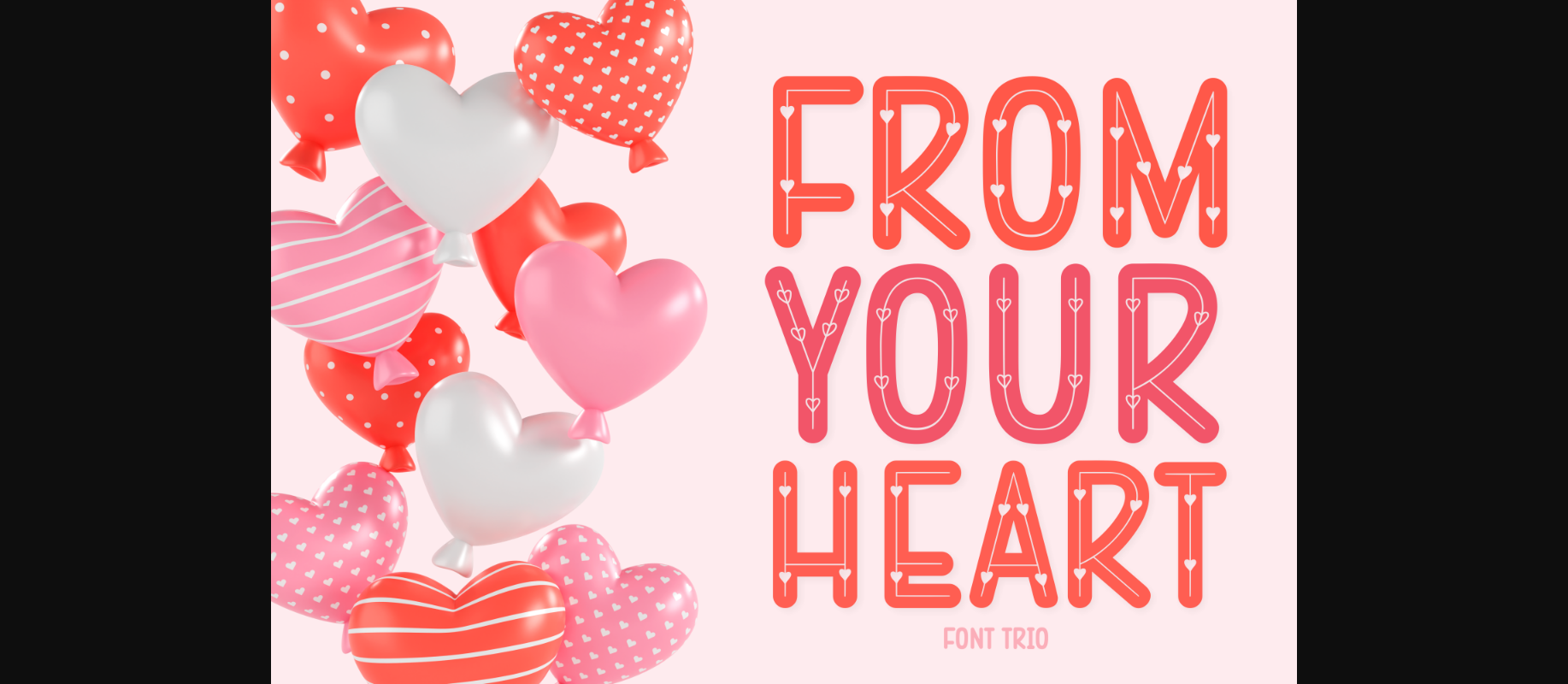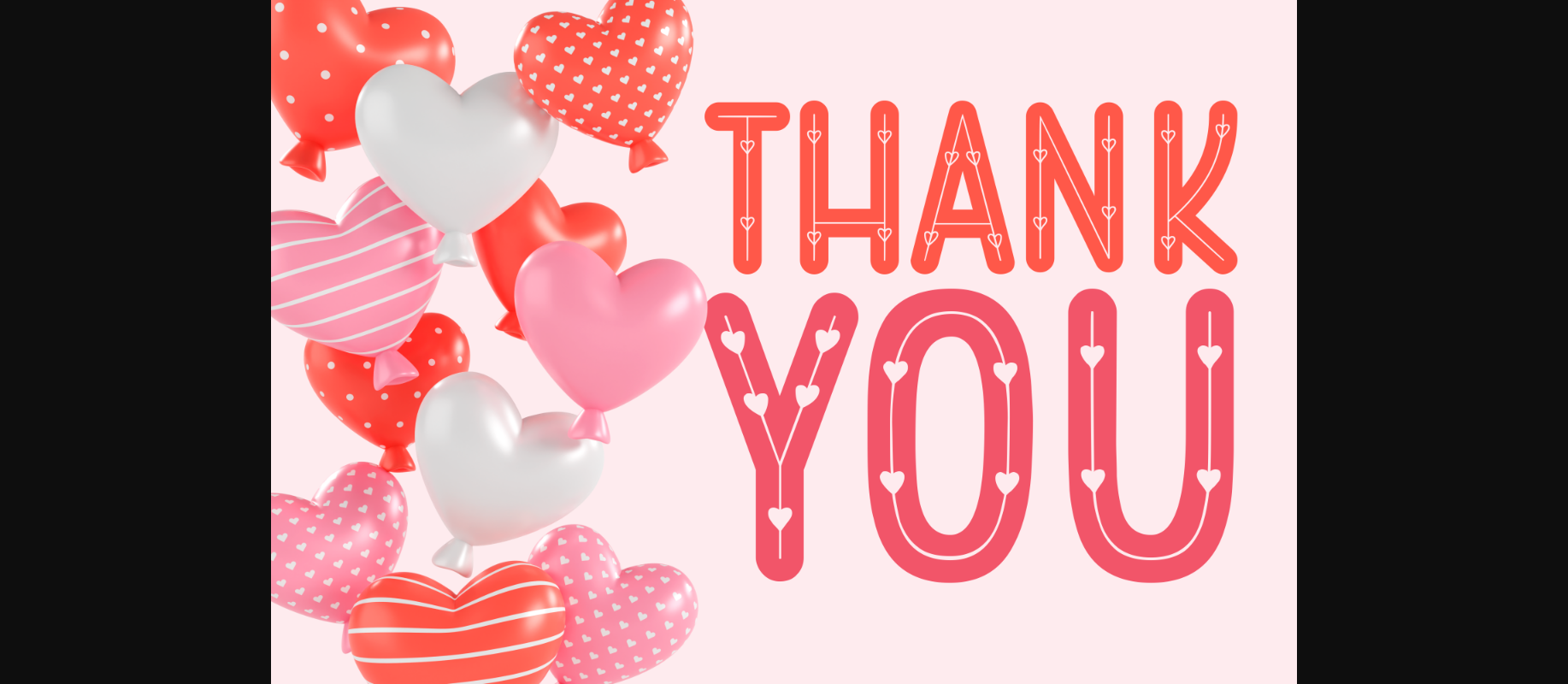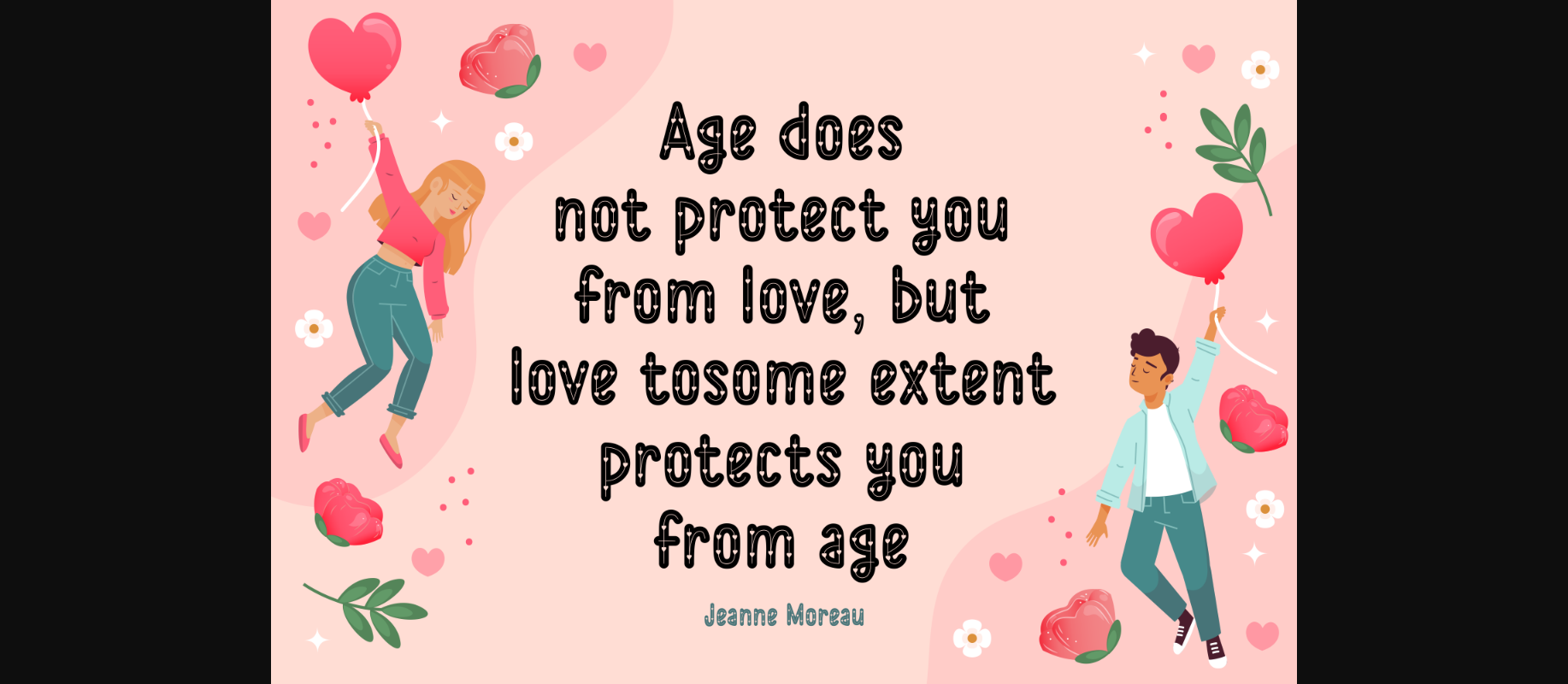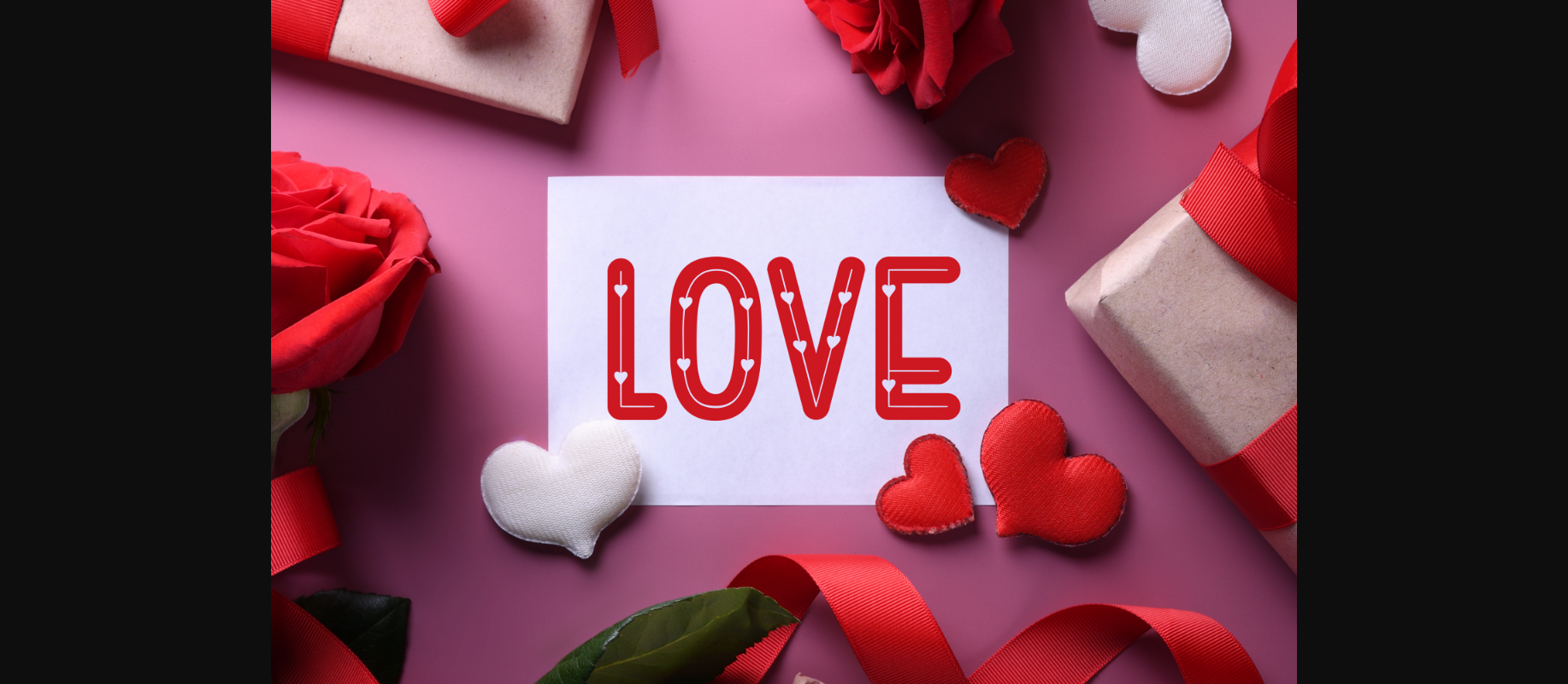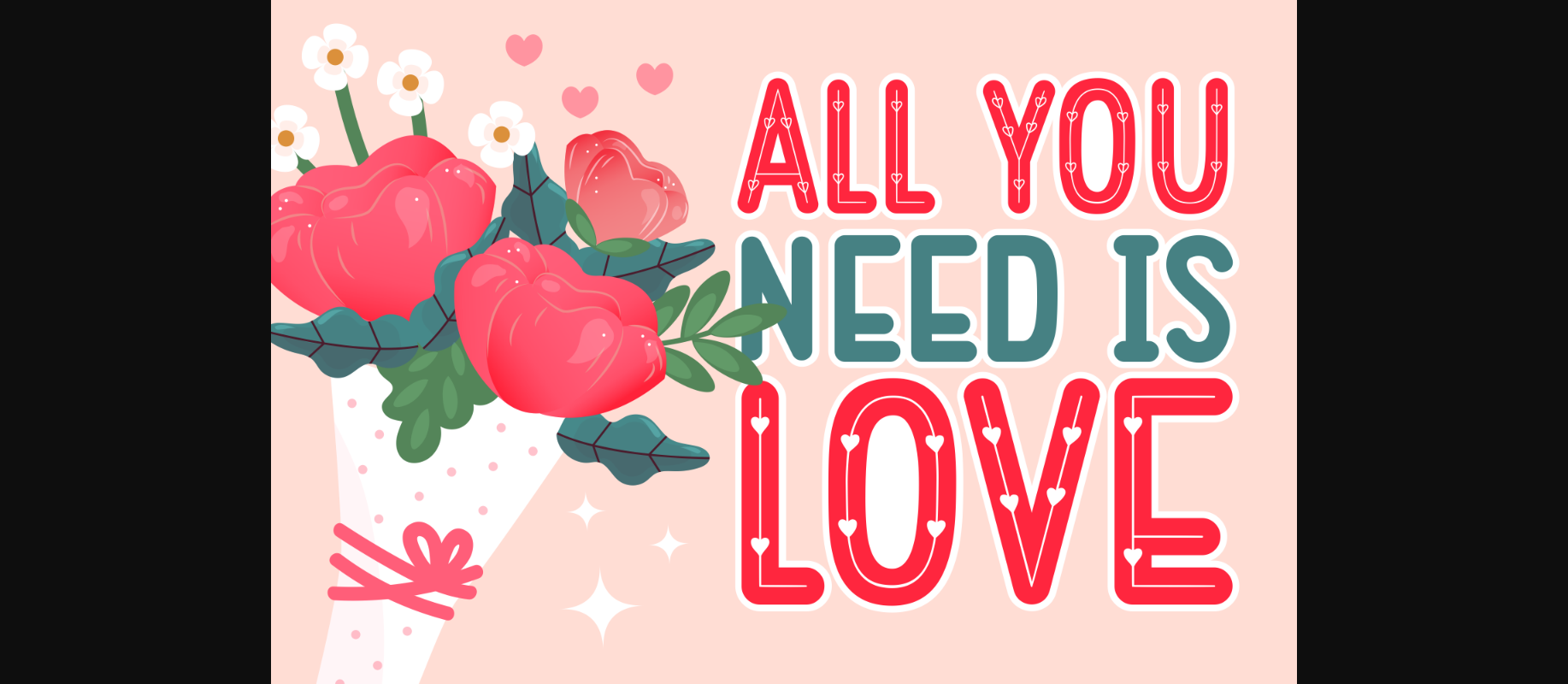
About From Your Heart Font
With this font, your messages will become really super cute. This font is perfect for posters, greeting cards, t-shirts, branding materials, quotes, and any other amazing projects you are working on.